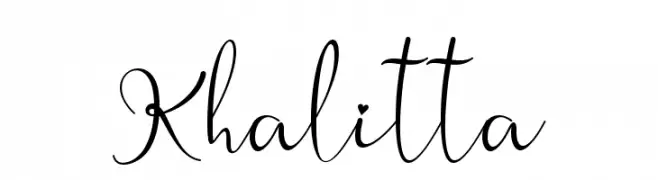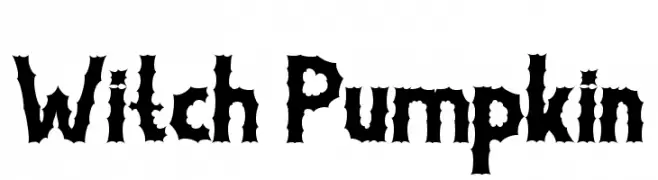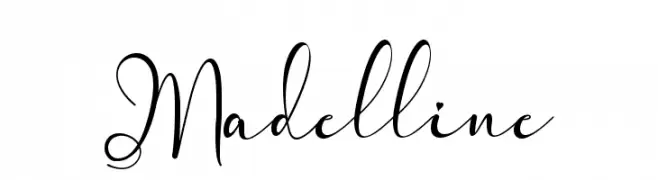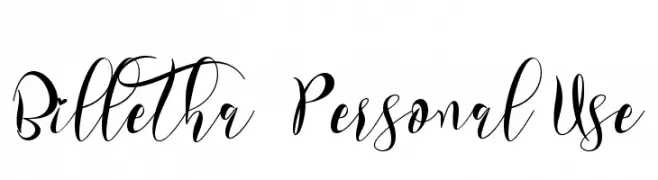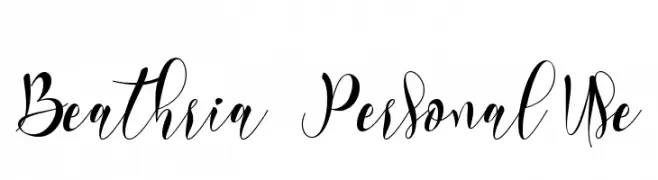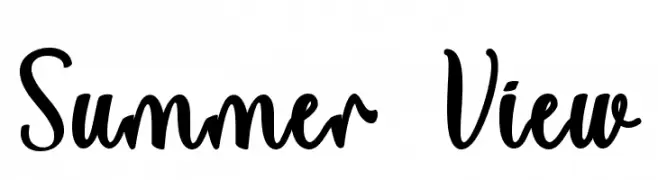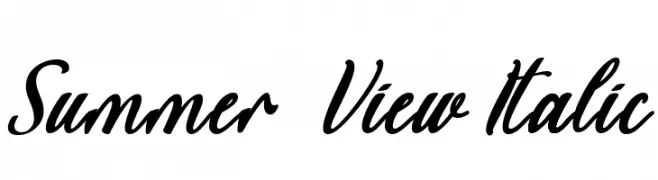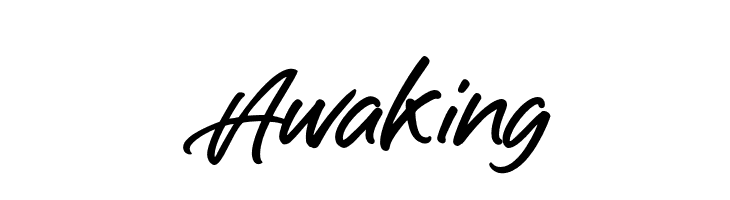
A graceful, cursive script font with smooth, connected strokes and a sophisticated appearance.
A bold, horror-themed font with jagged, thorn-like details and a gothic style.
A whimsical and elegant script font with flowing, interconnected letters.
A romantic, cursive font with elegant, flowing letters and whimsical embellishments.
A bold, jagged font with a Halloween-inspired, carved pumpkin look.
An elegant script font with flowing, cursive style and intricate swashes.
An elegant, flowing script font with modern, artistic curves.
An elegant, flowing script font with sweeping curves and delicate strokes.
A playful, handwritten script font with smooth, flowing curves.
A bold, italicized script font with interconnected letters and a flowing style.